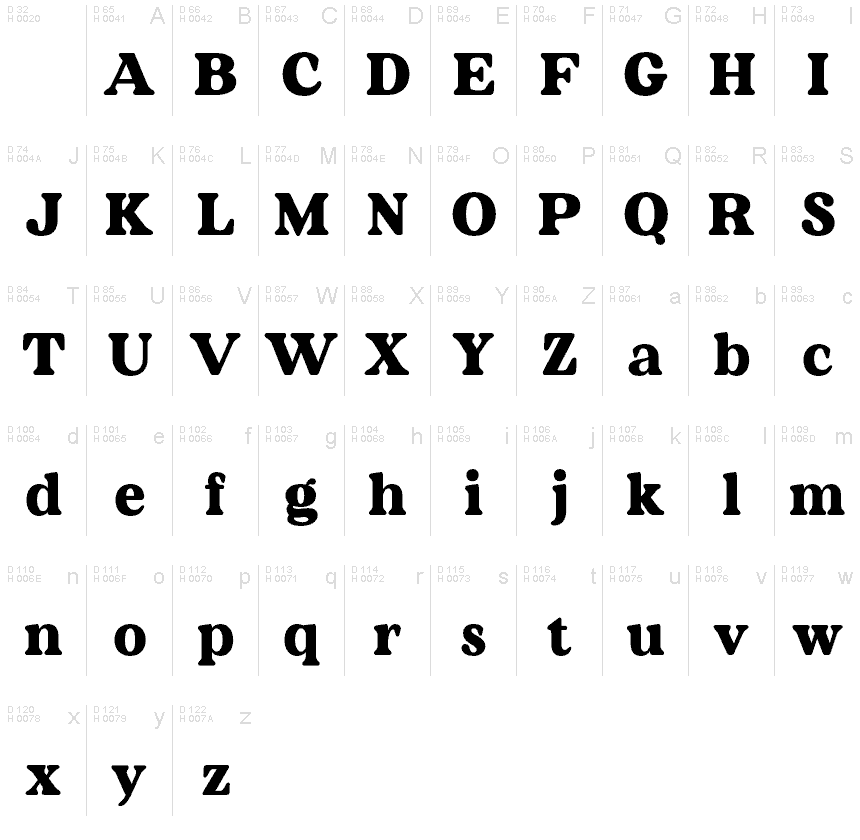
CS Maylie Regular Demo
CS Maylie font by Craft Supply Co. is a free bold serif font with a well-structured and authoritative appearance. Influenced by retro classics, CS Maylie carries the traditional forms that made these fonts successful in the past, but with a more modern and minimalist touch, offering this unique and professional display also seen in modern and contemporary branding.
Structured designs require such typefaces referring to food menus, product labels, classic movie posters, formal invitations cards, website headers or banners, headlines of newsletters or digital magazine covers. This strong look will grab attention on packaging for chocolate boxes or limited edition coffee blends.